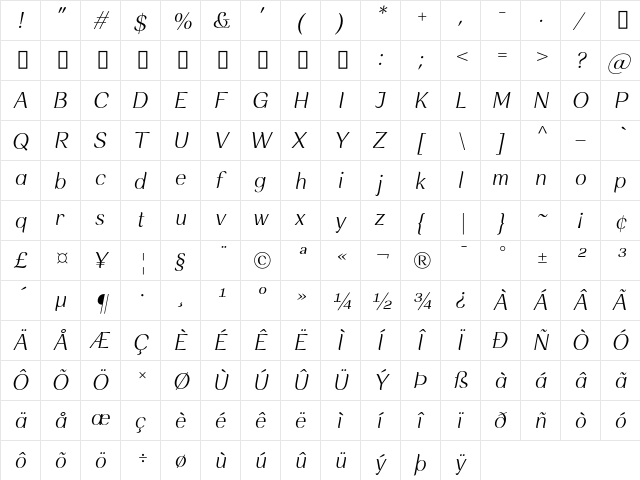
Rossanova Personal Use Light Italic Font Preview
Design Context for Rossanova Personal Use Typeface
Rossanova Personal Use is a composed and adaptable typeface that performs quietly and consistently across a wide range of design contexts. Its italic angle brings a sense of urgency and motion to the letterforms. Its slender proportions lend an understated elegance to any composition.
Pro Tip: Try Rossanova Personal Use for annotation and caption copy alongside an upright companion — the contrast in angle creates a dynamic but ordered typographic system.